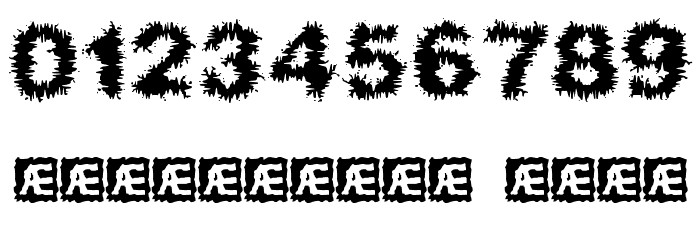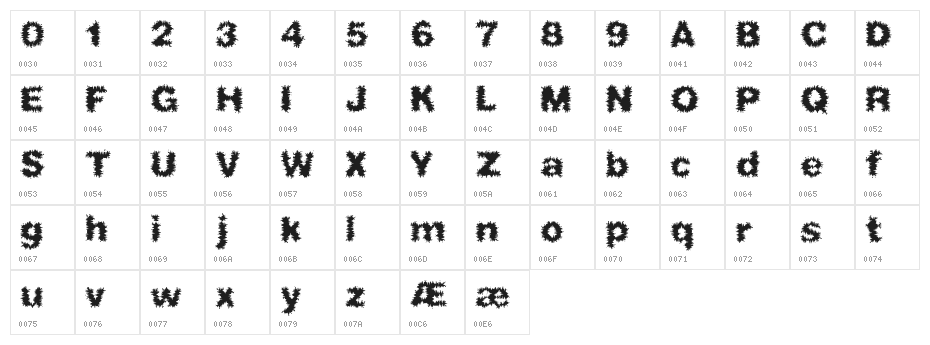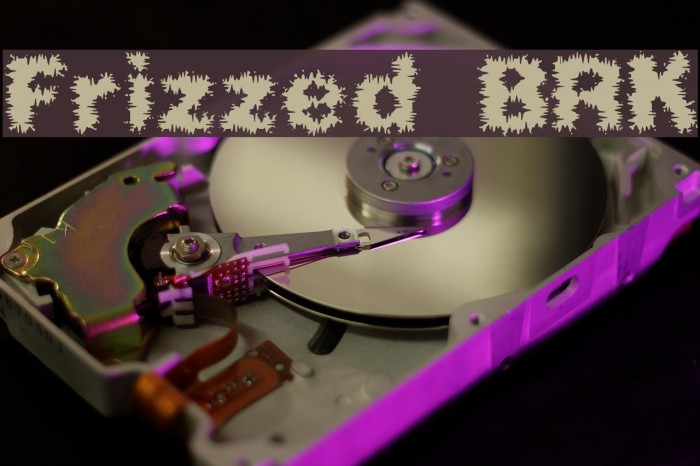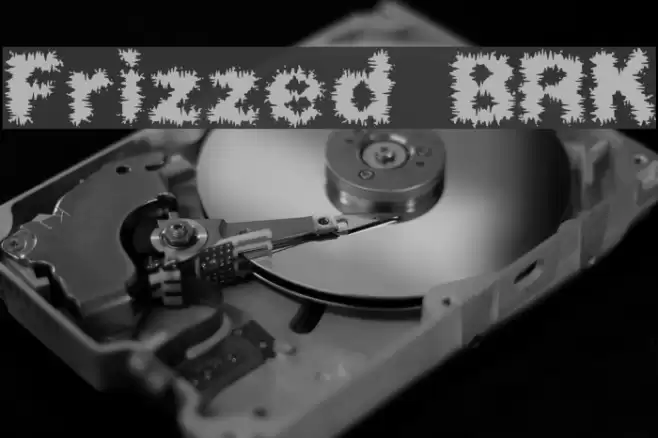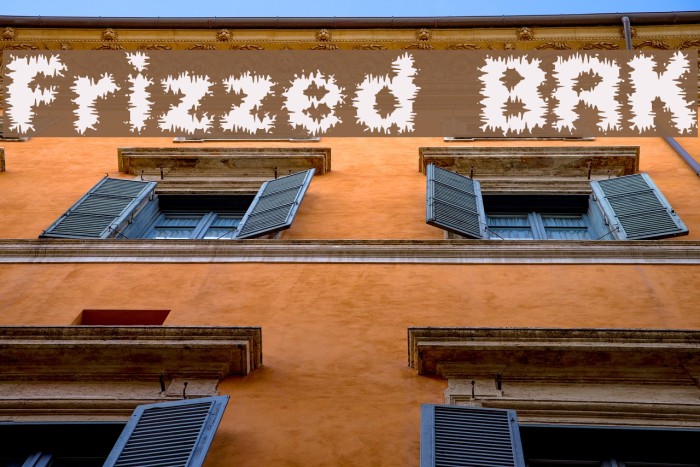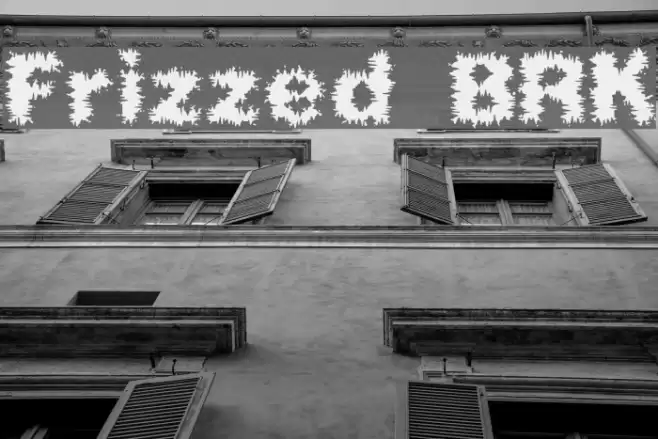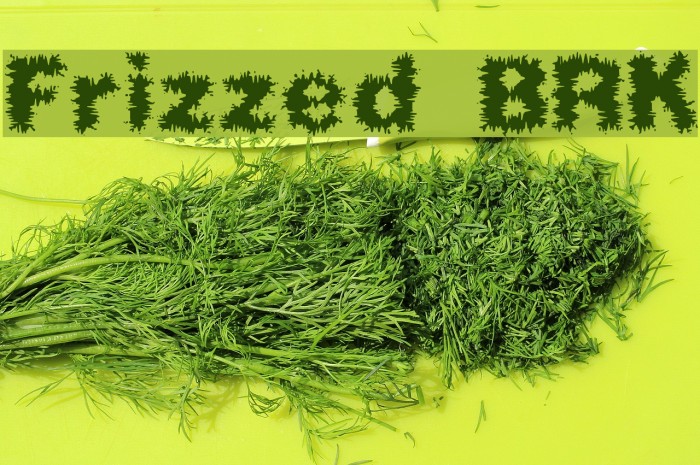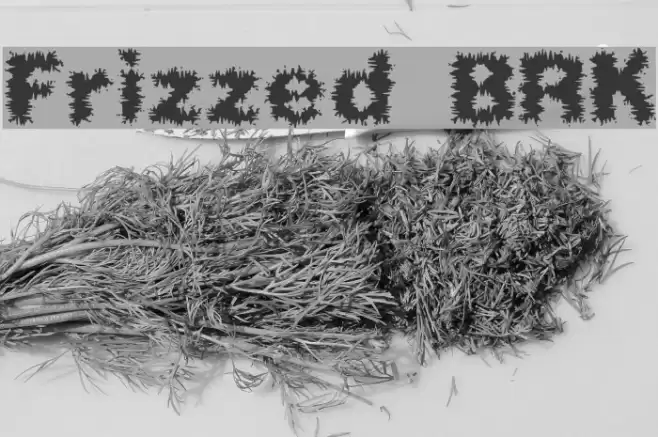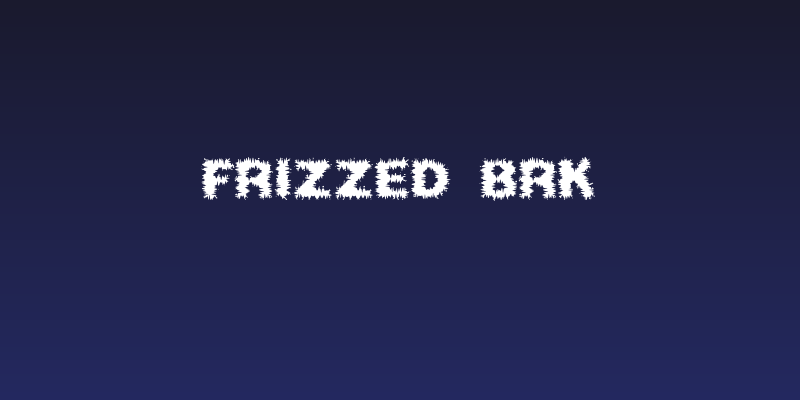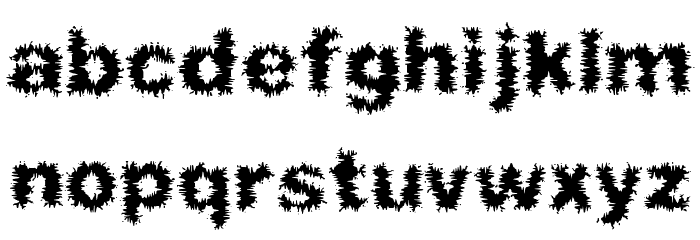
Frizzed BRK Font
Frizzed BRK Description
This font features a unique and playful design, characterized by its jagged, frizzy edges that give it a dynamic and energetic appearance. Each character is filled with irregular, spiky outlines that create a sense of movement and excitement. The uppercase and lowercase letters maintain a consistent style, with the same frizzy texture applied uniformly across all characters. Numbers and special characters also follow this distinctive design, ensuring a cohesive look throughout. The font's bold and eye-catching nature makes it ideal for projects that require a fun and unconventional aesthetic.
| Proposed Projects | Ideal for party invitations, children's book covers, playful branding, and creative posters. |